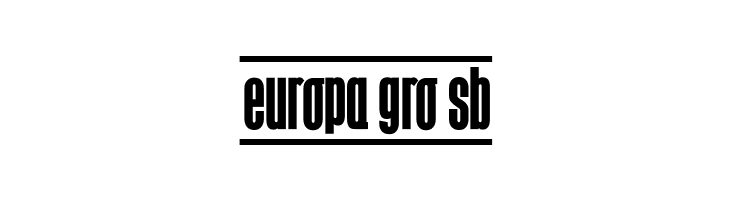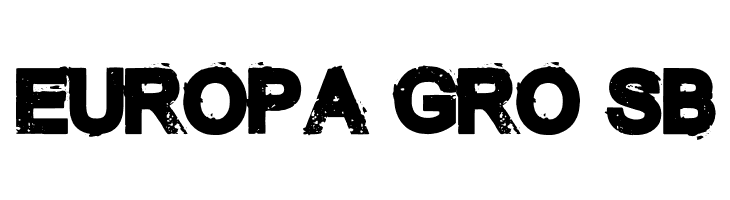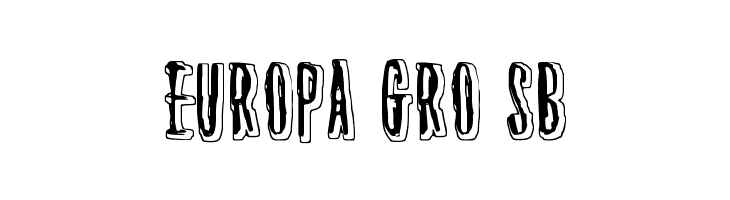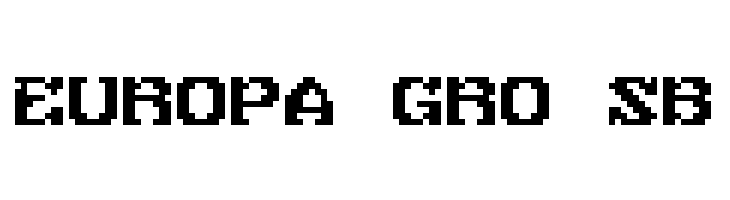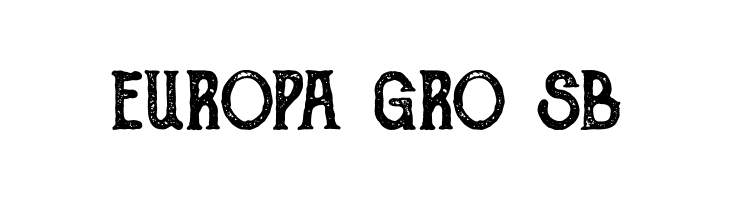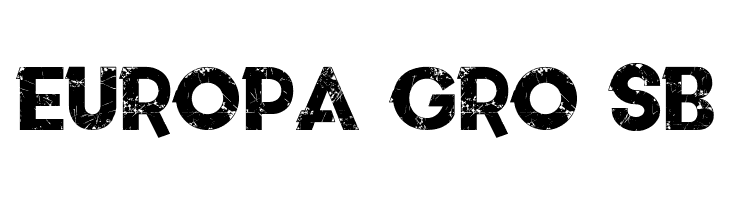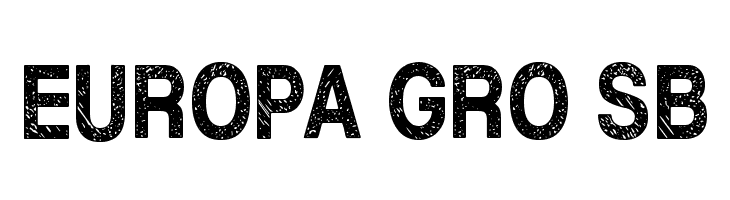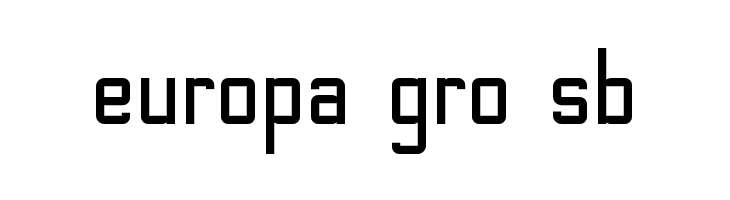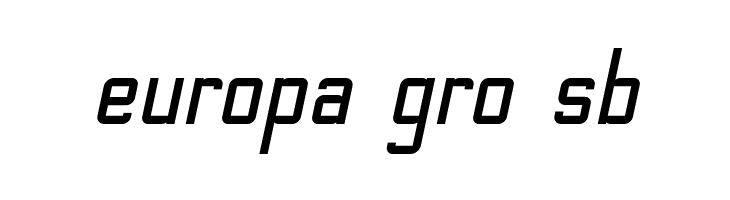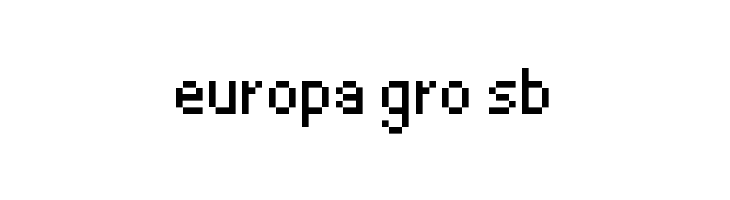
• TheEthereal
• TheGanesha
A decorative font with playful ball terminals and bold, whimsical characters.
• TheGoldsmithVintage
A vintage, distressed font with a textured, handcrafted appearance.
• TheGrimRaiders-Regular
A bold, jagged font with sharp, thorny edges for dramatic impact.
• TheJukeBox-FFP
A bold, condensed font with strong vertical lines and tight spacing.
• TheJukeBox-FFP
• TheLastCall-Regular
• TheMatic
A modern, geometric font with a clean and technical design.
• TheMatic Bold
A bold, modern font with clean, geometric lines and balanced character spacing.
• TheMatic Bold Italic
A bold, italicized font with a modern, sleek, and slightly condensed style.
• TheMatic Italic
A sleek, modern italic font with a dynamic and streamlined design.
• TheMatic Light
A modern, geometric font with thin, uniform lines and a minimalist design.
• TheMatic Light Italic
A sleek, modern italic font with thin strokes and a geometric structure.
• Theodista Decally
A playful and whimsical script font with ornate uppercase and flowing lowercase letters.
• Theodista Decally Italic
A graceful and elegant script font with flowing, interconnected strokes.
• TheUnknown-Regular
A bold, distressed font with a rugged, vintage aesthetic.
• TheValley
A geometric and angular font with a futuristic and edgy design.
• Thin Cool
A sleek, modern font with elongated, narrow characters and a minimalist design.
• Thin Cool Italic
A sleek, italicized font with thin, elongated characters for a modern look.
• ThinkHigher
A chaotic, thorny decorative font with intricate, jagged details.
• Thintel Regular
A pixelated, blocky font with a retro digital aesthetic.
• Thirteenth Floor
A bold, decorative font with a hand-drawn, distressed look.